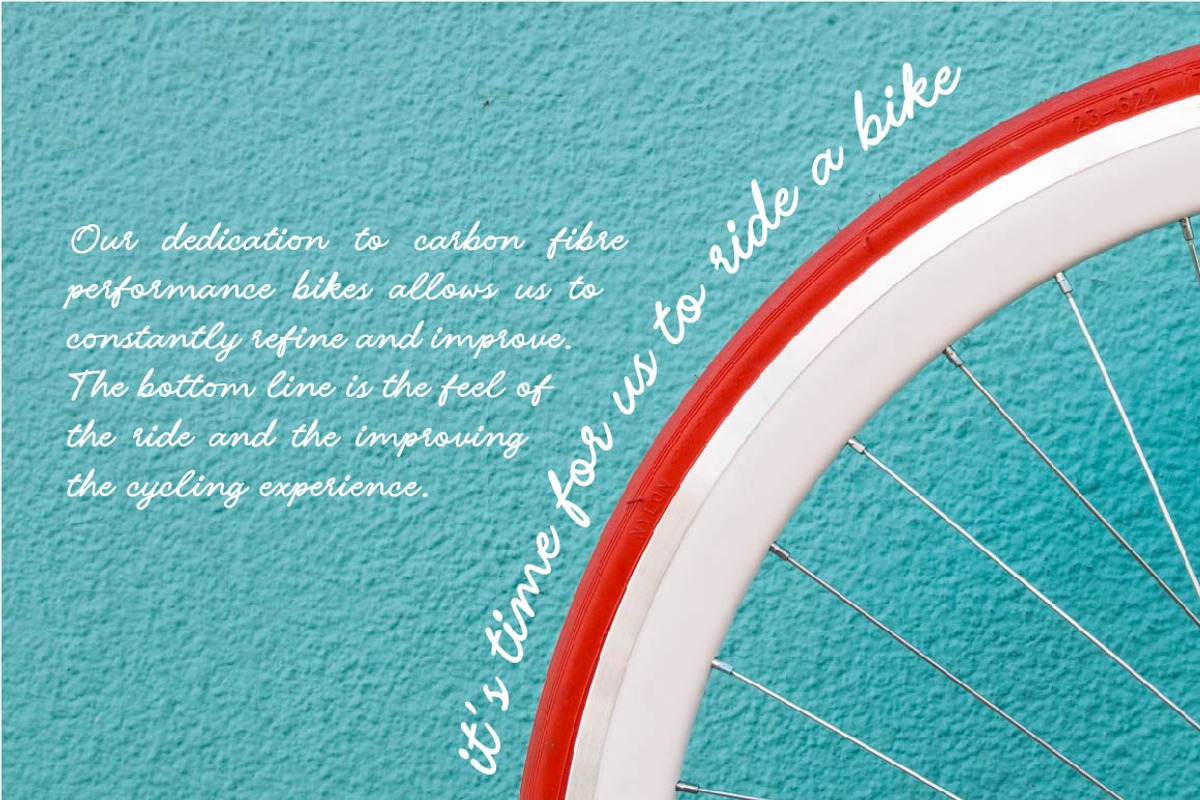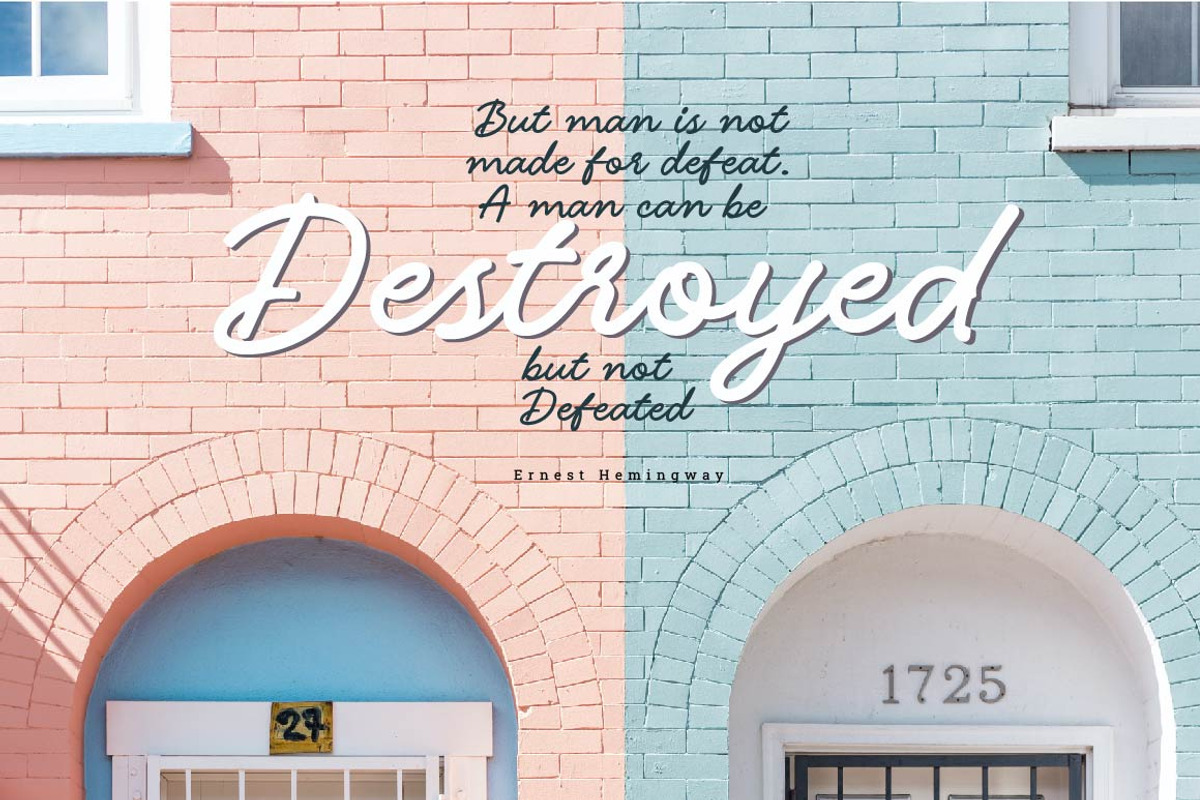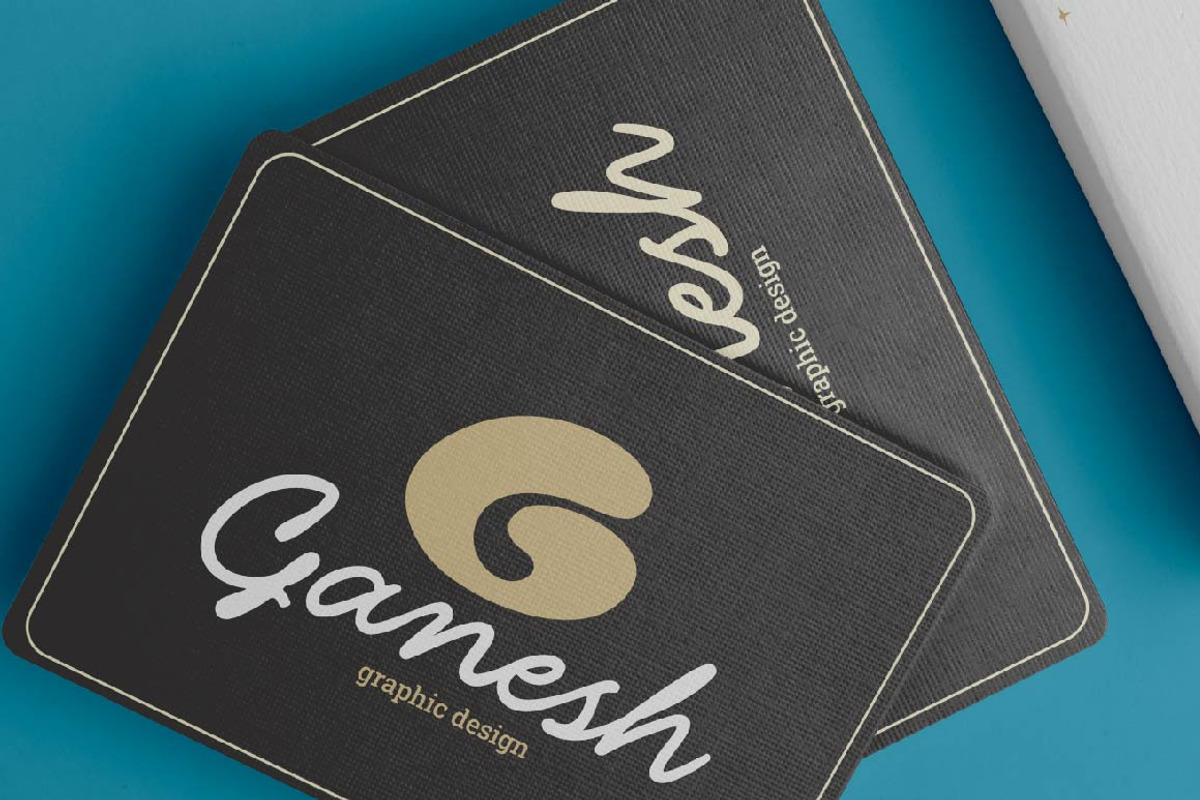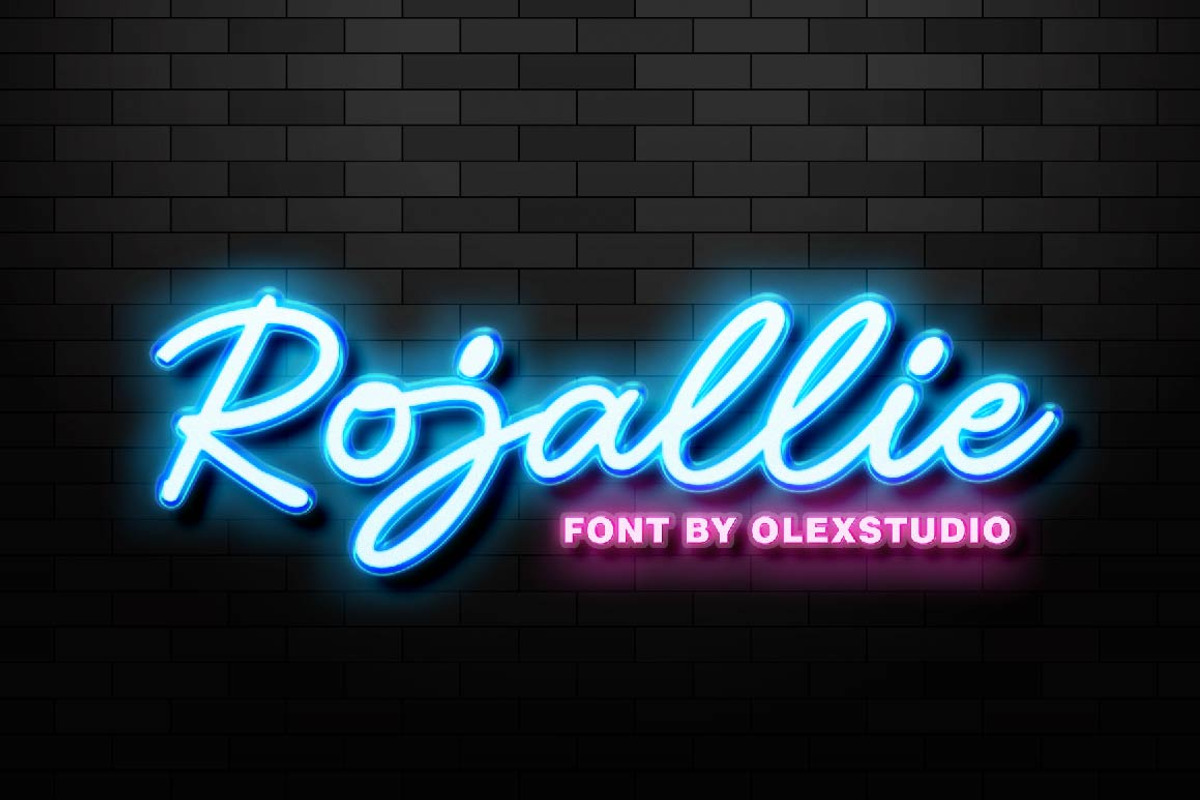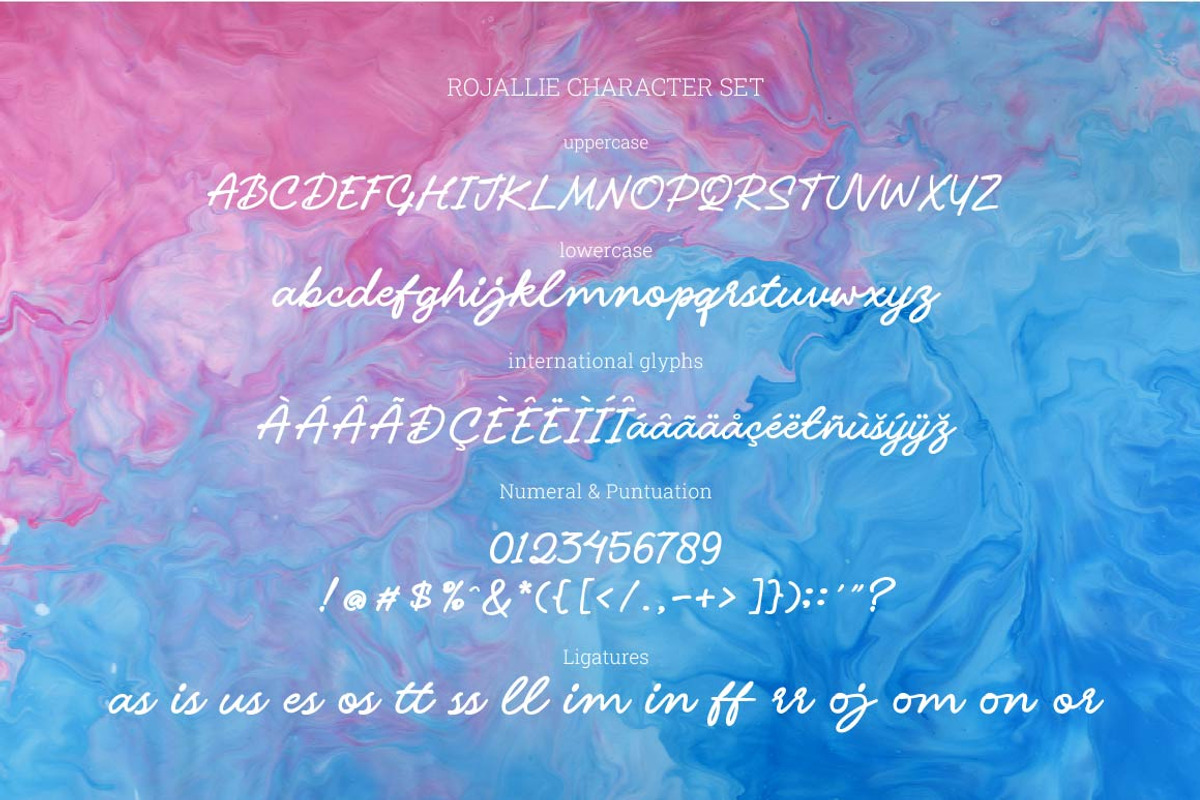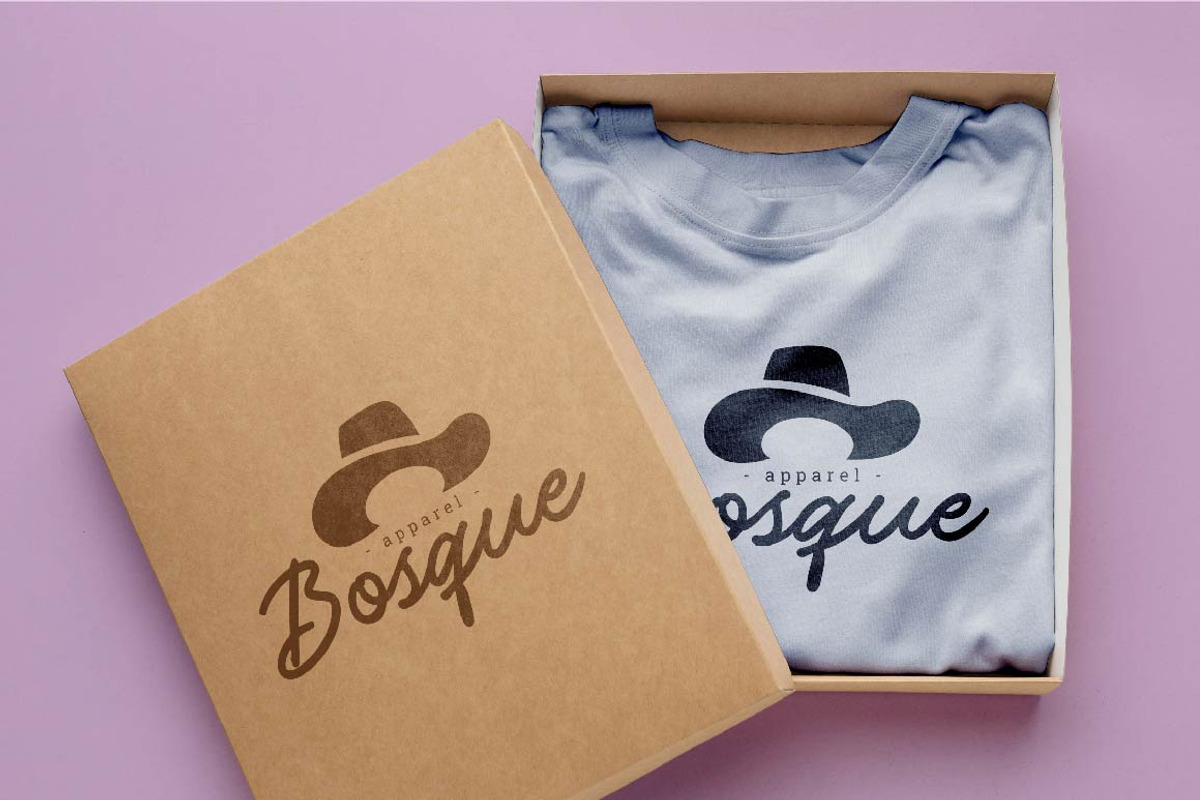
Rojallie - Script
Rojallie - Script Font will look gorgeous on all your designs, invitation, poster design, book design, branding materials, logo's, and all project design other.
Rojallie.- Script Font contains standard characters, Lowercase, Uppercase, numbers, punctuation, ligatures and international glyphs. You will receive OTF, TTF files & WEBFONT.